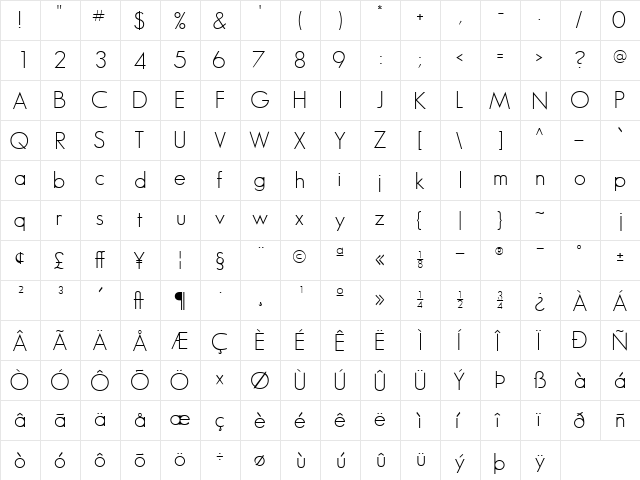
BouganSSK Regular
Design Context for BouganSSK Typeface
BouganSSK takes a measured approach to typography — its balanced proportions and neutral character make it a reliable workhorse for both digital and print work.